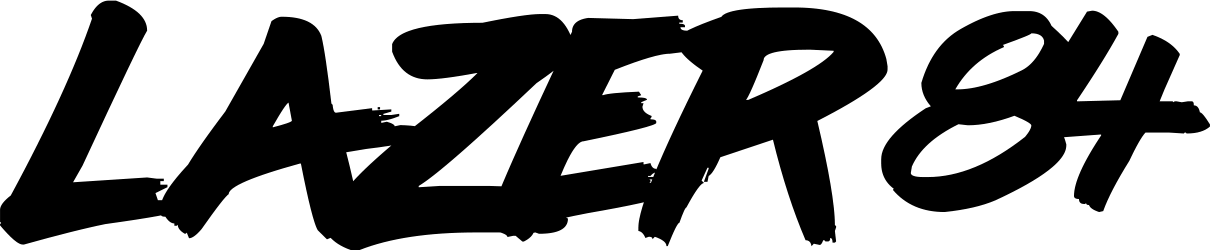
Lazer 84 Font
Brush fonts are kind of fancy, as they provide you with a natural feel. This Lazer 84 font that we are introducing, has a slightly different style to other brush fonts as it’s a unique mix with comic fonts!
Marking it something like a painted graffiti font is interesting! As you see the font characters are slanted. All the letterforms needed for the perfect text are available and provided. Use it for any design, poster, title, or whatever you wish.
Lazer 84 is a retro style brush font inspired in 80’s.